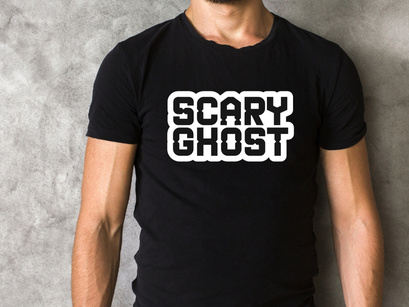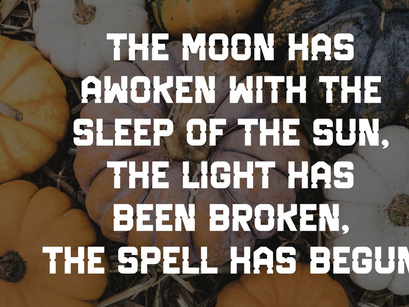
Vintage Pumpkin is a striking Modern Quirky Sans Serif font with bold, blocky forms and unique vintage-inspired cutouts, giving it an edgy, aggressive, and highly memorable look. It’s perfect for attention-grabbing Halloween and spooky-themed branding, event posters, apparel, and powerful headlines. This all-caps display font is ideal for designers seeking a balance between modern geometric style and a quirky vintage feel to create distinct, high-impact designs for seasonal or intense urban projects.